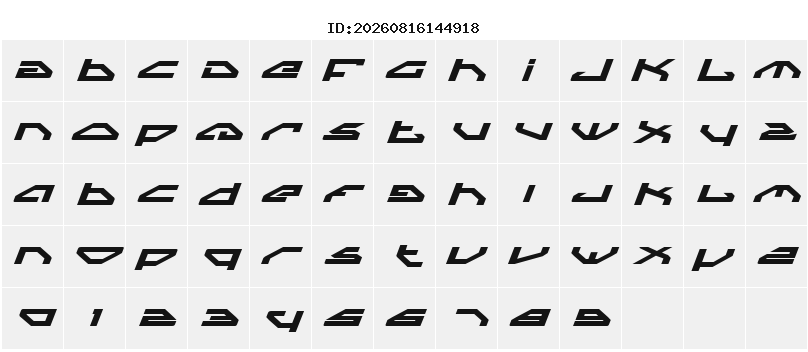
Spylord Bold Expanded Italic Preview
• Font Name: Spylord Bold Expanded Italic
• Font Style: BoldExpandedItalic
• Full Font Name: Spylord Bold Expanded Italic
• PostScript Name: SpylordBoldExpandedItalic
About Spylord Bold Expanded Italic.ttf
Spylord Bold Expanded Italic.ttf is a modern, elegant sans-serif font designed for ultimate readability and visual harmony. Perfect for branding, headlines, web design, and print materials.